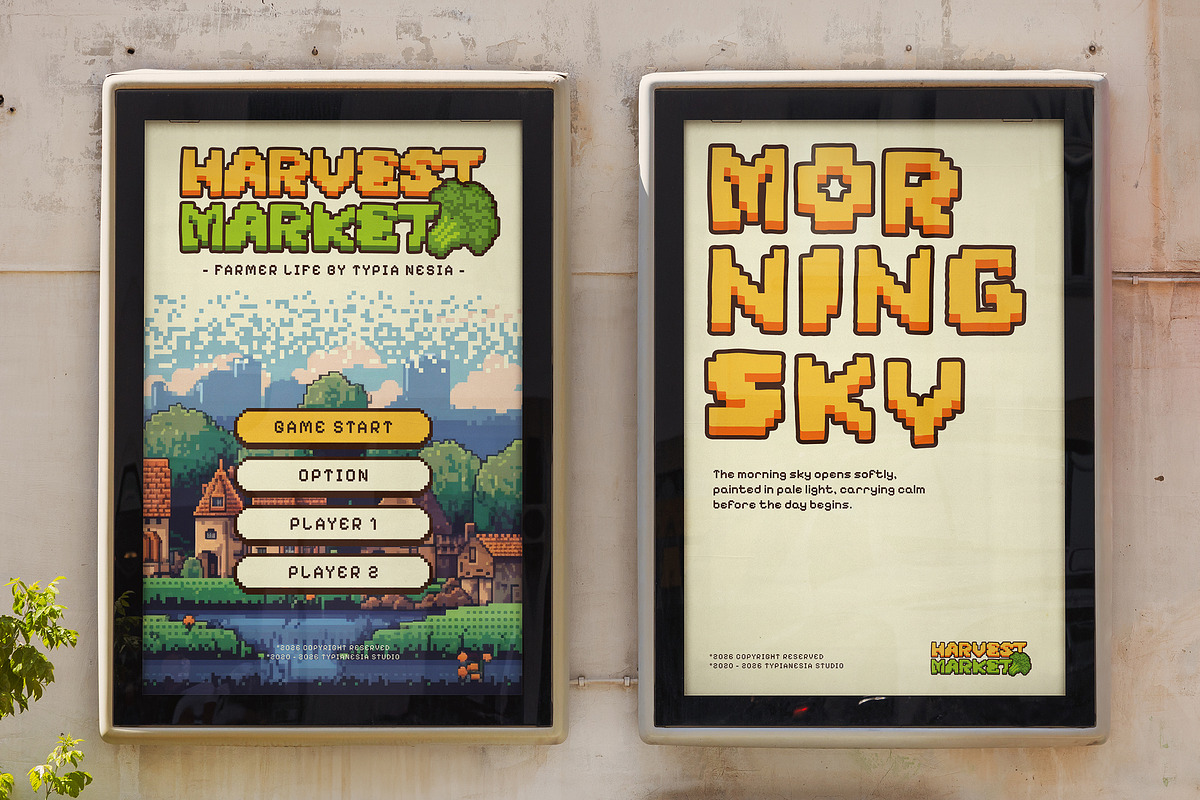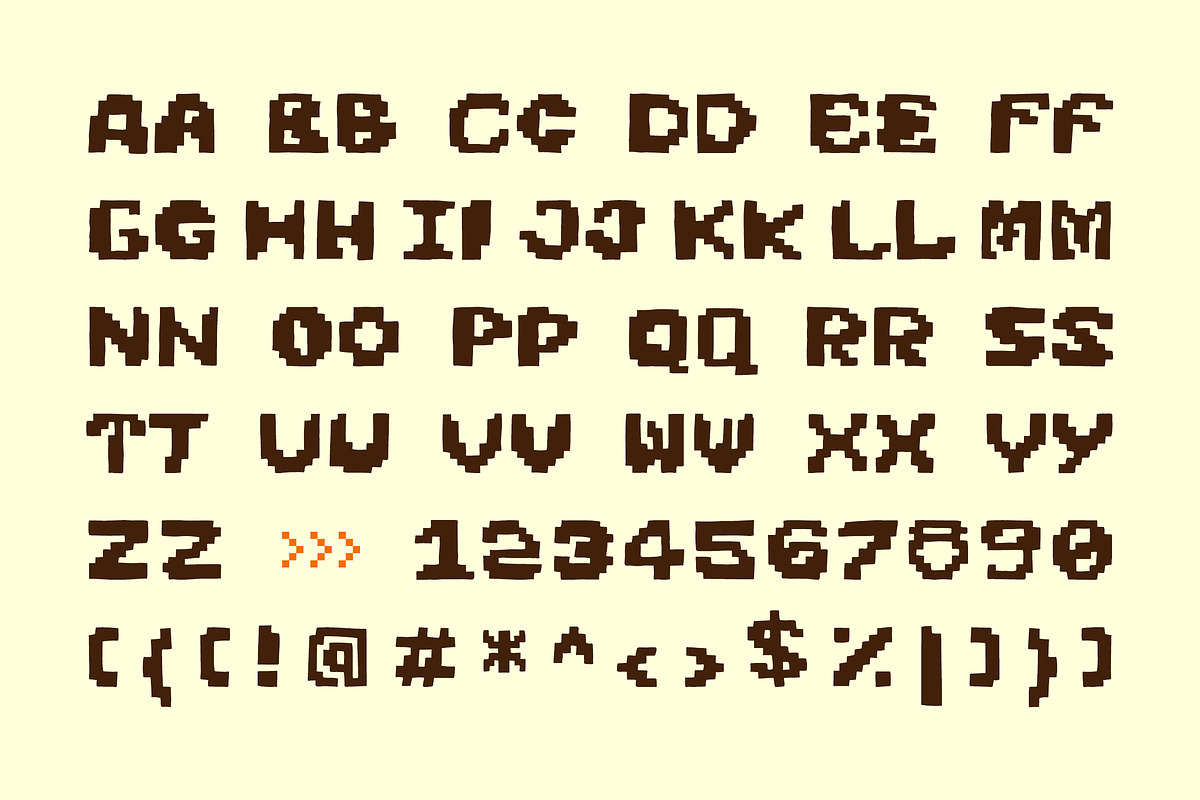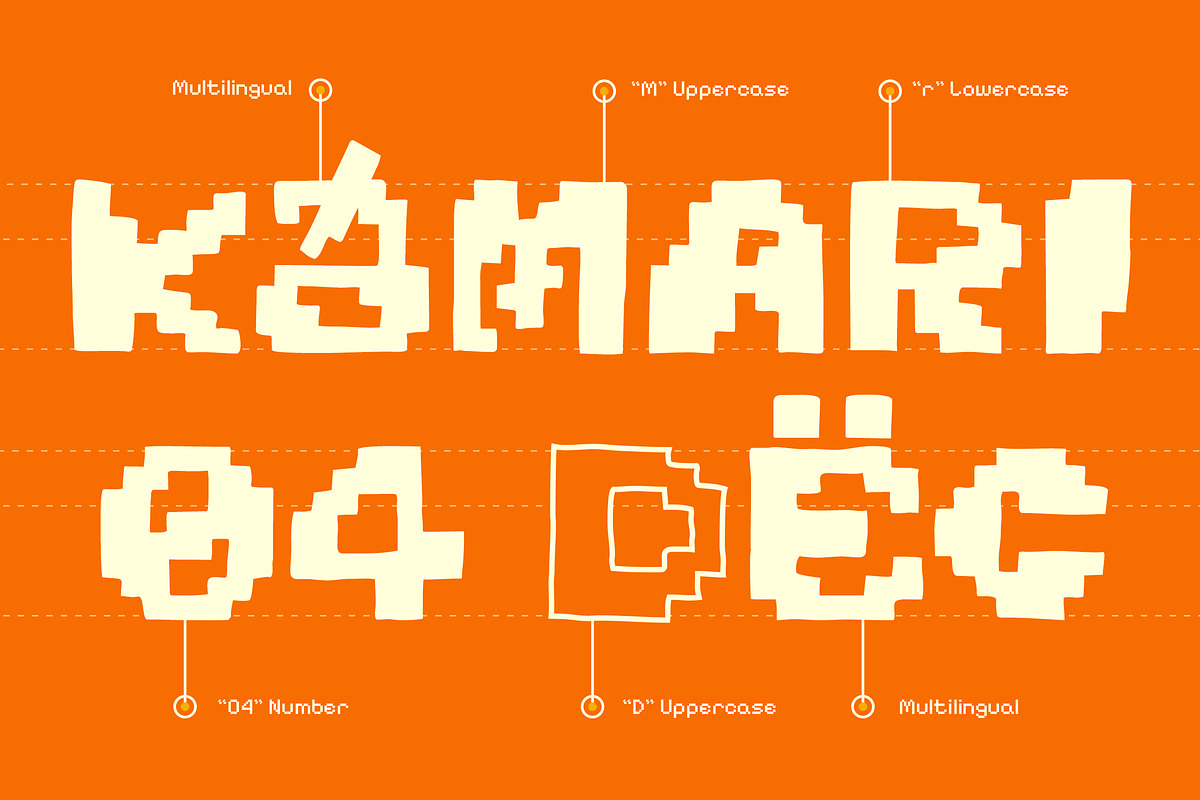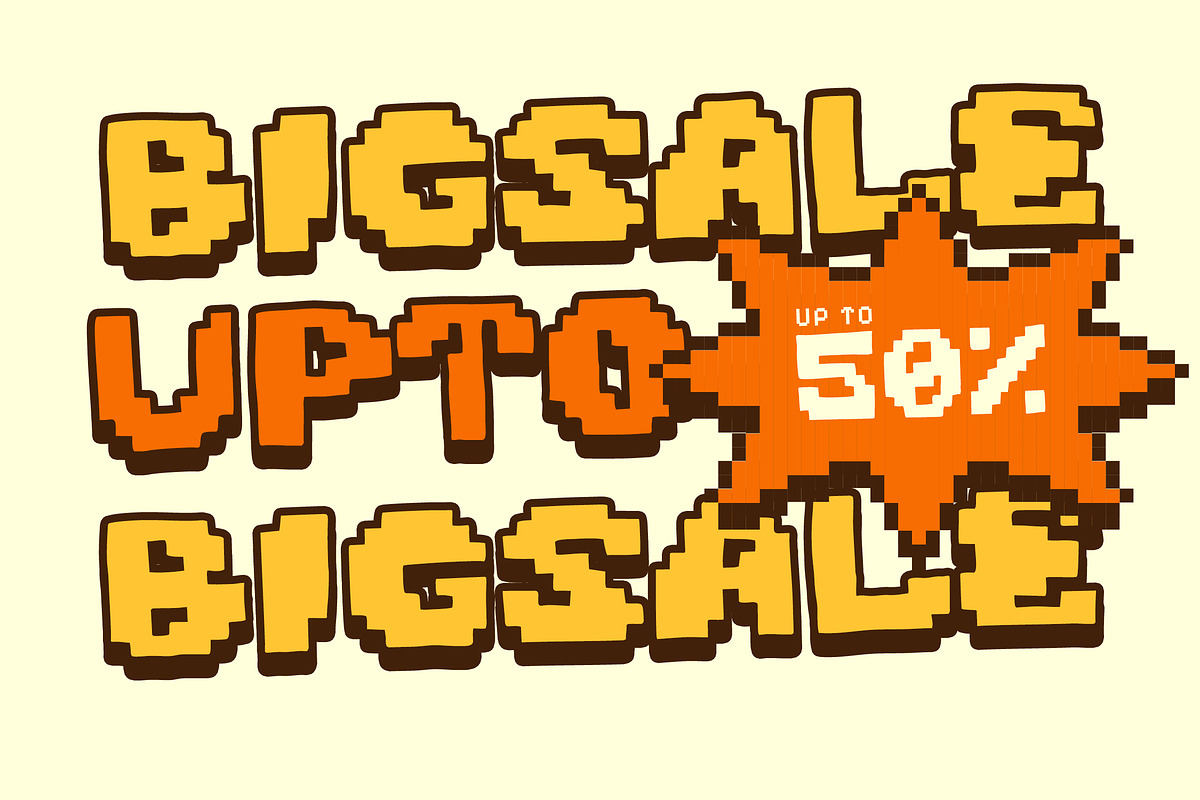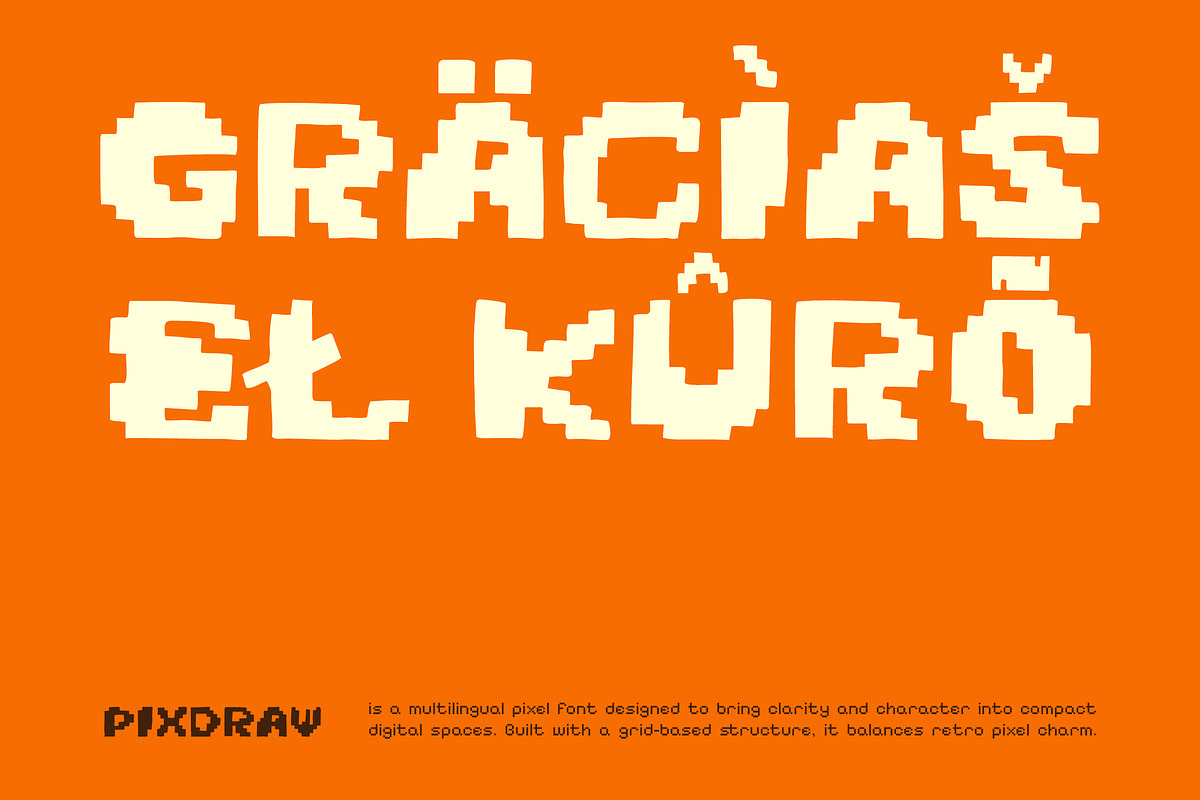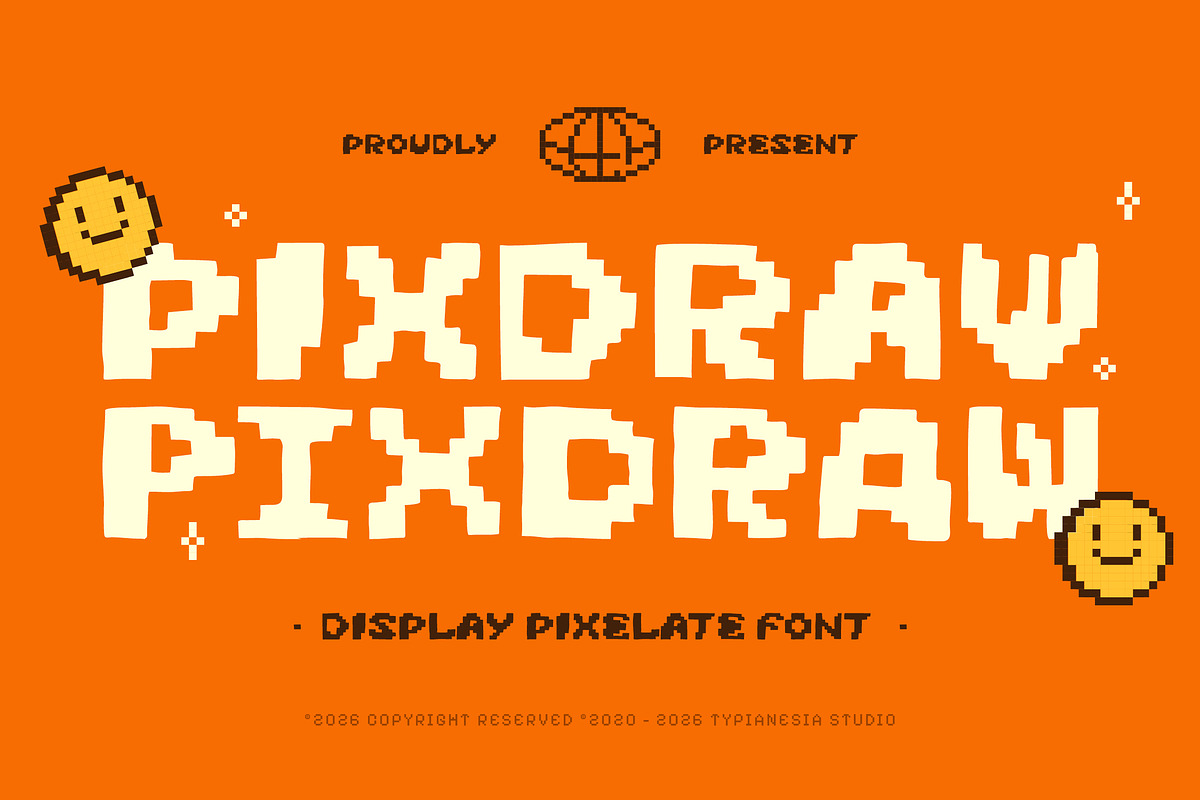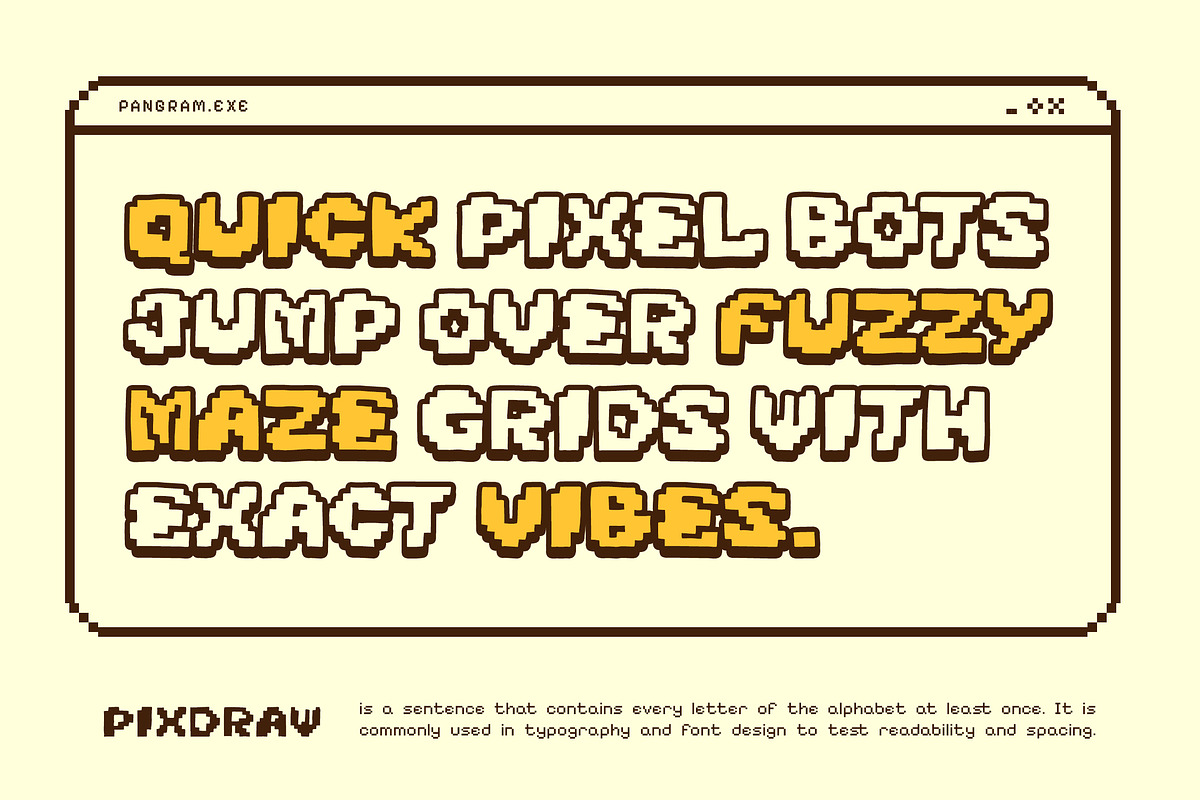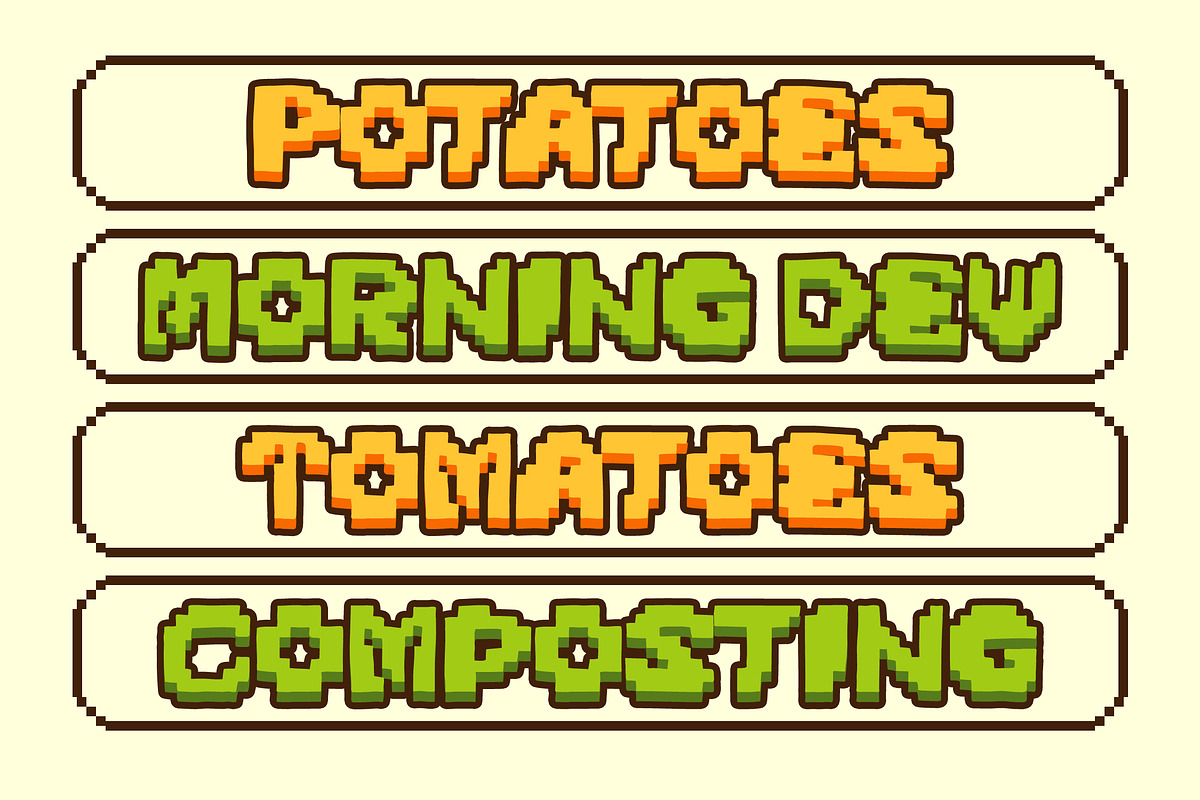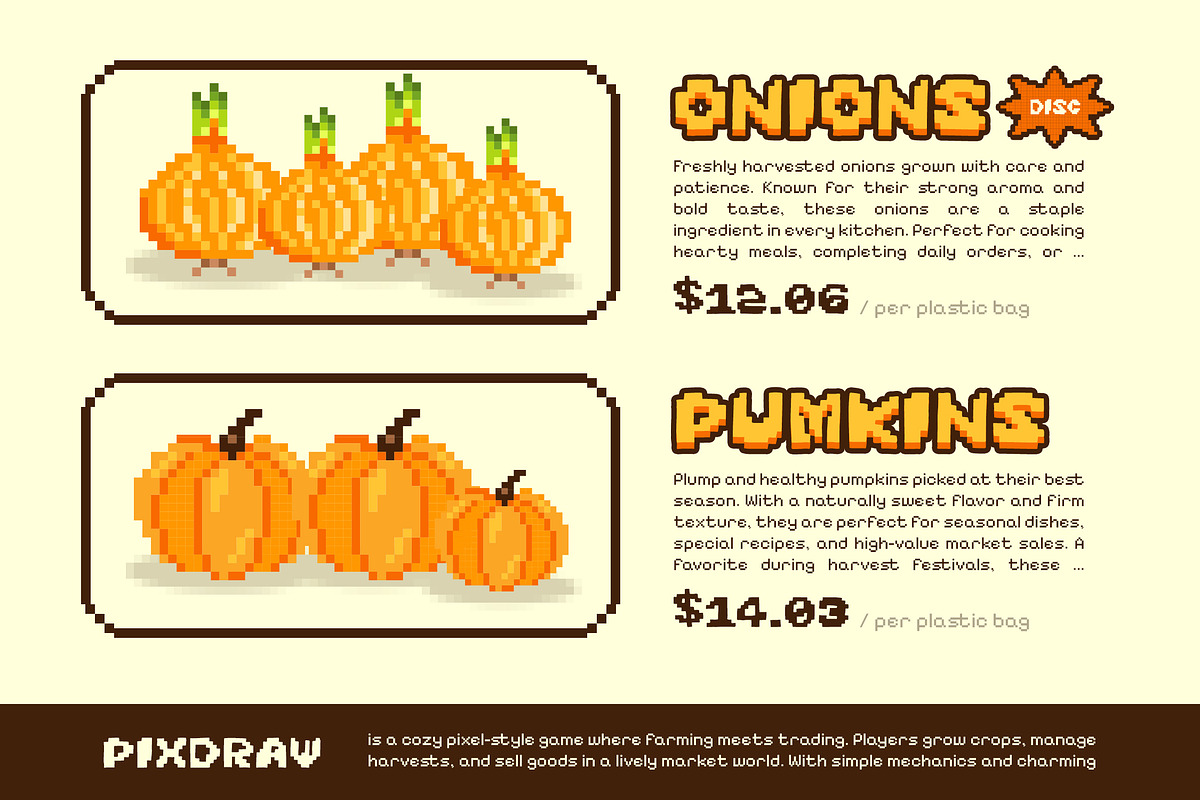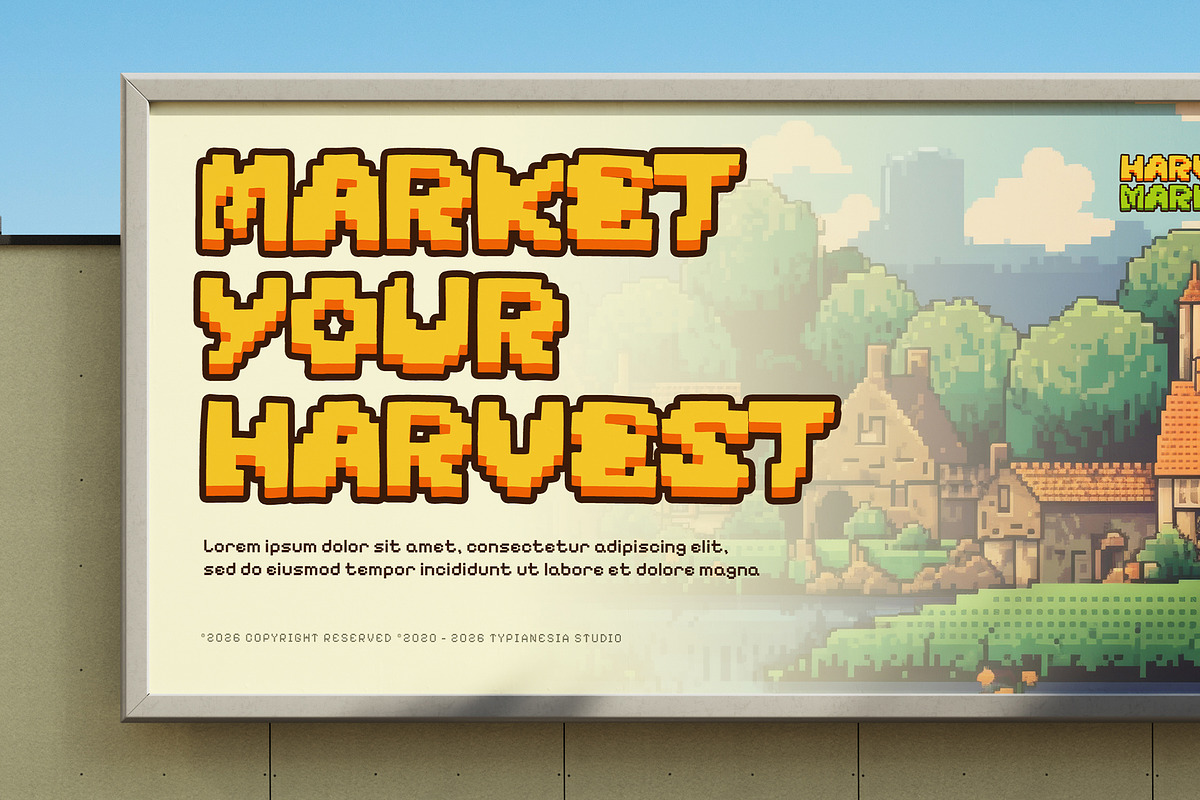
Pixdraw - Organic Imperfect Doodle
Pixdraw - Organic Imperfect Doodle Pixel Font - Pixelated Retro Game Cartoon Logo Font
Pixdraw is a bold and vibrant display pixelated font that reimagines the classic pixel aesthetic with a unique hand-drawn twist. With its organic and imperfect energy, this font captures a playful doodle-style character that feels expressive and lively. Designed with raw, craft-inspired edges and fun letterforms, Pixdraw is perfect for kids' branding, game titles, playful logos, sticker designs, digital artwork, social media content, and any project that demands a friendly cartoon vibe while maintaining a strong visual presence.